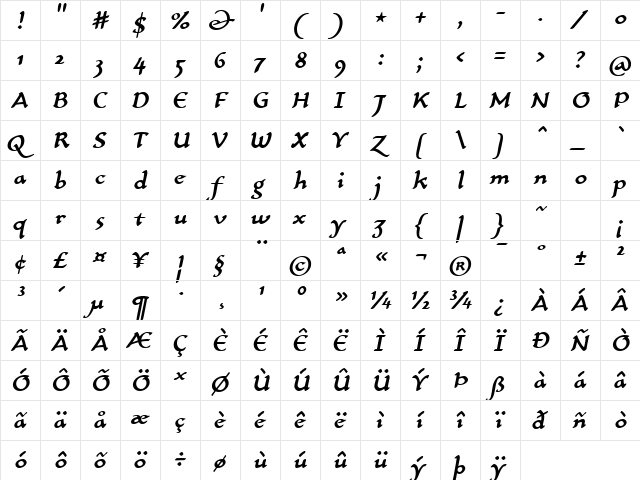
CarlinScript LT Std MediumIt Regular Font Preview
| Foundry | Linotype Library GmbH |
| Designer | Hans-Jn Ellenberger |
Design Context for CarlinScript LT Std MediumIt Typeface
CarlinScript LT Std MediumIt brings a calligraphic fluidity to the page — its connecting strokes and expressive curves give it an unmistakably human quality. The delicate stroke weight brings airiness and refinement to layouts.
Font Pairing: Combine CarlinScript LT Std MediumIt with a simple geometric sans for maximum contrast — the tension between flowing curves and clean structure is a classic typographic pairing.
Pro Tip: Pair CarlinScript LT Std MediumIt with a clean sans-serif for supporting text. The contrast between fluid script and geometric structure creates an elegant typographic hierarchy.